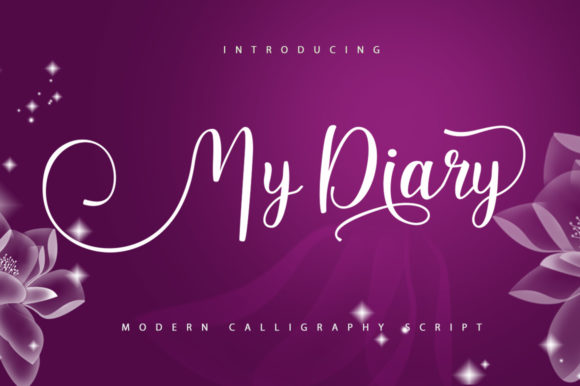
Voyage into the realm of creativity with My Diary Font, a mesmerizing, handcrafted script font designed by Stellar Studio. Its natural charm and spontaneous strokes will imbue your projects with warmth and authenticity, evoking the cherished memories chronicled in a personal diary.
My Diary Font's captivating allure lies in its distinctive energy and heartfelt elegance. Each character dances across the page, capturing the essence of handwritten notes penned with care and passion. Unleash your creativity and let your imagination soar as you craft enchanting invitations, heartfelt greeting cards, or captivating social media posts.
Immerse yourself in a symphony of graceful curves and elegant flourishes. My Diary Font's script style adds a touch of whimsy and playfulness to your designs, transporting you to a world where dreams take flight and stories come alive. Its inherent versatility lends itself seamlessly to a myriad of creative endeavors, from heartwarming personal correspondence to captivating branding materials.
Elevate your designs with My Diary Font, and watch as your words and visuals blossom into captivating expressions of your unique style. Allow your creativity to flourish as you explore the boundless possibilities this remarkable font offers. Embark on a creative odyssey where every stroke tells a story, and every project becomes a cherished keepsake.